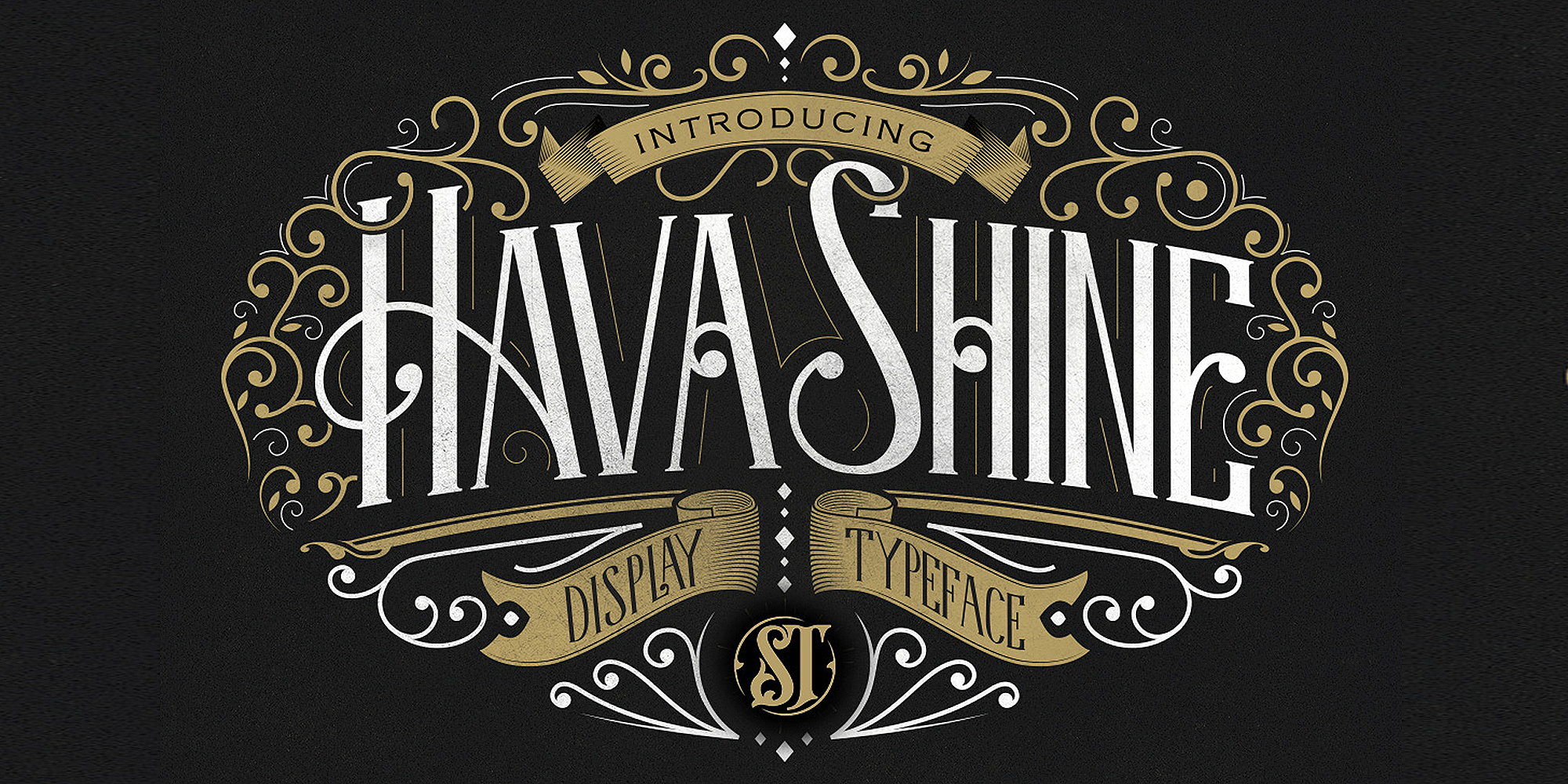
Hava Shine Font is perfect for glamorous event branding, sparkling jewelry packaging, luminous beauty product labels, radiant fashion campaigns, brilliant entertainment posters, dazzling nightclub signage, shimmering party invitations, and glowing celebration marketing materials. This brilliant typeface excels in applications where luminous glamour and sparkling elegance are essential.
What makes Hava Shine Font so exciting is its dazzling ability to capture the brilliant radiance and luminous glamour of sparkling elegance through gleaming, light-inspired letterforms that embody the captivating allure of shimmering beauty and the magnetic appeal of radiant sophistication. The font features luminous character shapes with sparkling influences and brilliant styling that evoke images of diamond reflections, golden sunlight, and the mesmerizing glow of elegant illumination. Its radiance-focused design philosophy combines glamorous authenticity with contemporary brilliance, making it perfect for luxury brands seeking to convey sparkling beauty, luminous elegance, and connection to glamorous lifestyle communities and radiant sophistication culture.
Hava Shine Font belongs to the luminous display font family, specifically designed for glamorous events and sparkling luxury-themed branding applications. This typeface family emphasizes brilliant visual impact through light-inspired styling and radiant character elements, ensuring authentic glamorous presentation across various luxury entertainment and sparkling elegance-focused design projects.
Illuminate your designs with Hava Shine Font Free Download, a typeface that embodies the brilliant radiance of sparkling glamour and luminous elegance. This dazzling font delivers exceptional brilliance for luxury applications, featuring comprehensive character sets with sparkling symbols and radiant punctuation marks that capture the essence of luminous beauty and glamorous sophistication. Its brilliantly crafted letterforms maintain excellent readability while preserving the authentic sparkling aesthetic across various sizes, from delicate jewelry tags to massive entertainment venue displays. The font's distinctive radiant personality makes it invaluable for designers creating glamorous brands, luxury materials, and sparkling content where conveying brilliance, radiance, and luminous elegance is crucial for engaging luxury audiences and glamorous lifestyle communities seeking authentic sparkling experiences and dazzling, radiant glamorous sophistication and brilliant luxury entertainment environments.